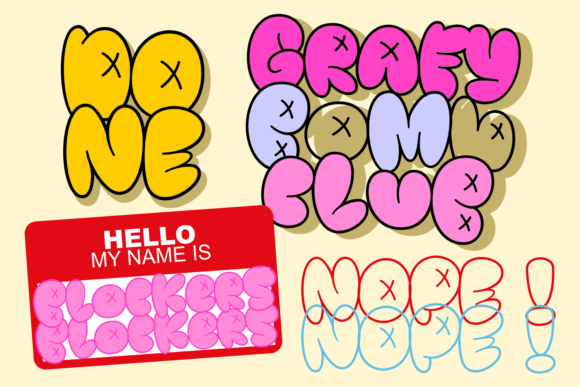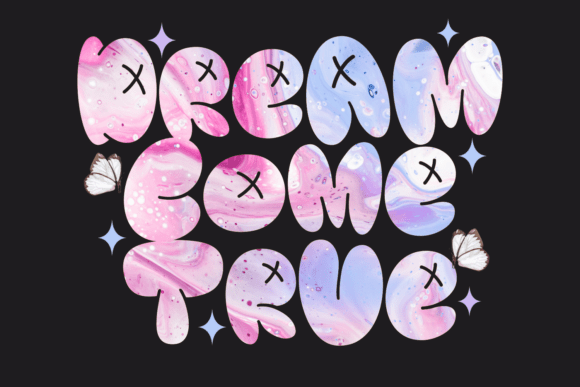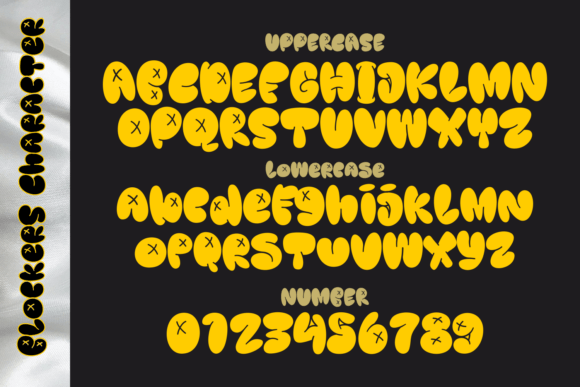
Blockers Font
Immerse yourself in the energizing allure of Blockers, a typeface deeply rooted in the zealous aspects of graffiti art. Bursting with bubbly character, it boasts a standout CTE style that’s bound to appease the most discerning of art patrons. Blockers transcends mere textual representation, imbuing your artistic pieces with a compelling charm that elevates them to unparalleled levels of aesthetic brilliance. The typeface skillfully merges vigorous line art with a timeless, regular style, delivering a versatile addition to your creative tool kit. Employ Blockers in your next design project for a splash of vibrancy, promising to etch a lasting impression with its visually stimulating appeal.